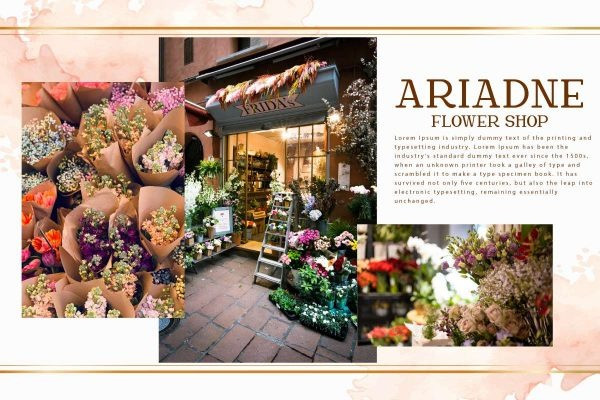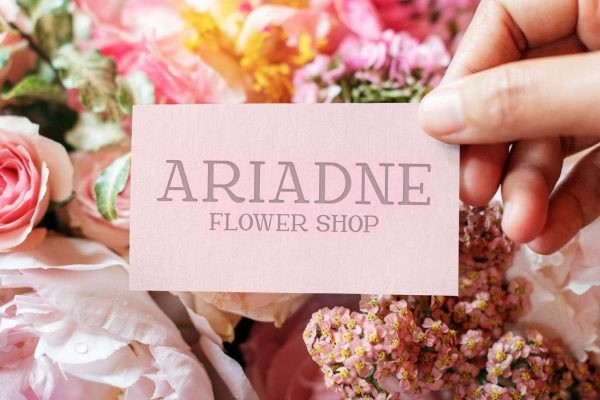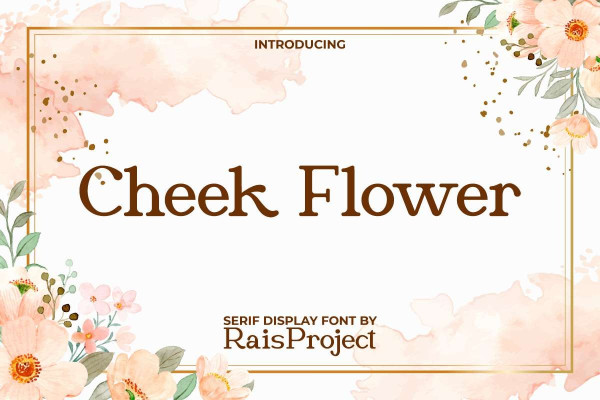
Cheek Flower Font
Cheek Flower Font is a stunning romantic serif display font with the looks that will makes you feel the love! It will be good for any design, such as brand logo, business card, cover, custom design, invitation, label, magazine, menu, poster, product packaging, quote, signage, web page, and more!
Cheek Flower Font includes a full set of Uppercase and Lowercase Letters, Numerals, and large range of punctuation. This beautiful font will be suitable for various industries, such as accessories, bakery & pastry, beauty product, café, fashion, florist, photography, printing, publishing, restaurant, wedding or event organizer, or etc.